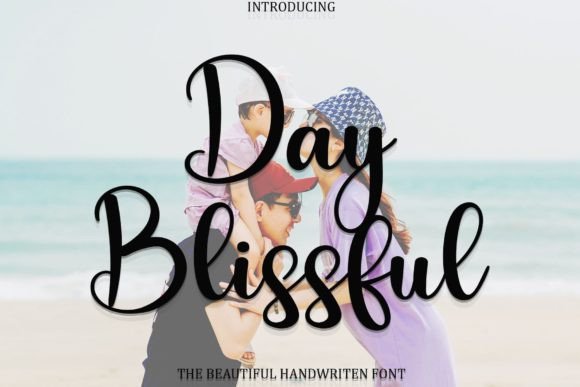
In a world yearning for authentic expression, allow us to introduce you to Day Blissful Font, a meticulously crafted script font family that exudes charm and uniqueness. This exquisite font is a testament to the artistry of Harlek studio, a collective of passionate font designers known for their dedication to creating fonts that resonate with your creative vision.
Prepare to be captivated by the flowing curves and elegant strokes of Day Blissful, a font that embodies grace and sophistication. Its inherent charm lies in its ability to effortlessly blend the classic and the contemporary, making it a versatile choice for a wide range of design projects.
If you seek a font that emanates warmth and personality, Day Blissful is your perfect companion. Its handwritten style adds a touch of intimacy and authenticity to any design, making it an ideal choice for personal branding, wedding invitations, and heartfelt messages.
With Day Blissful, you unlock a world of creative possibilities. Its natural and unassuming style allows it to seamlessly integrate into modern websites, adding a touch of elegance and sophistication. Let your imagination soar as you explore the endless opportunities that await you with Day Blissful.
For the discerning designer, Day Blissful offers an unparalleled level of customization. With a comprehensive range of weights, styles, and glyphs, you have the freedom to fine-tune your designs to achieve the perfect balance between form and function.
Join the growing community of creatives who have embraced Day Blissful as their font of choice. Its versatility and timeless appeal make it a must-have addition to any designer's toolkit. As you embark on your creative journey, let Day Blissful be your guiding light, illuminating your path to exceptional design.